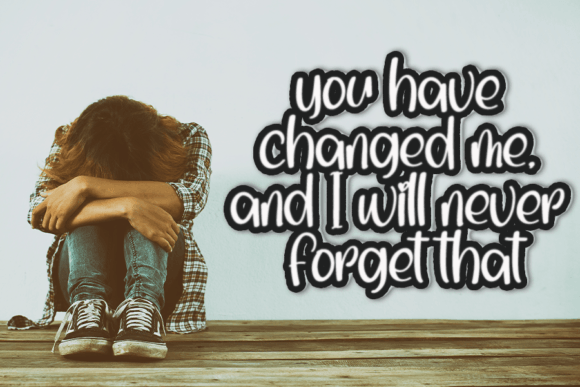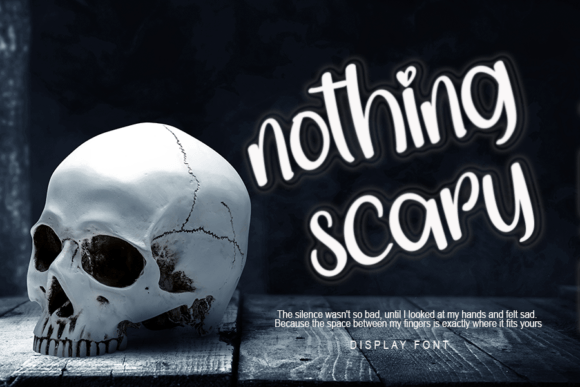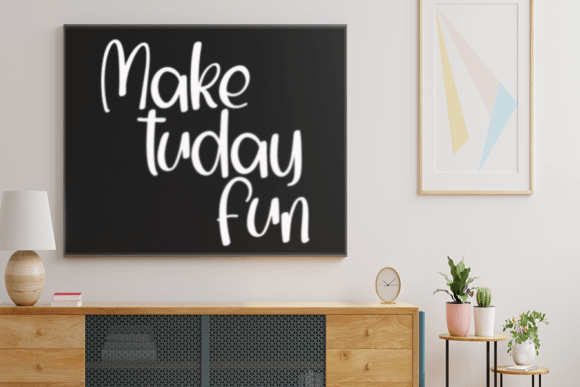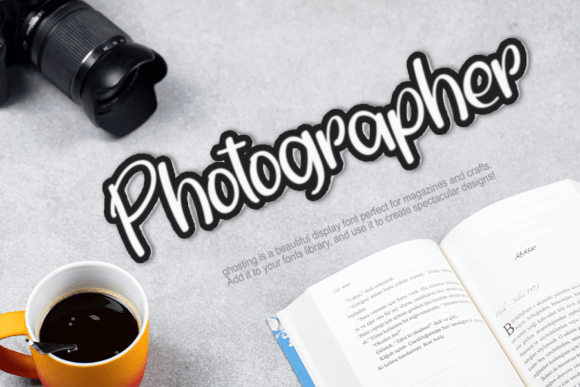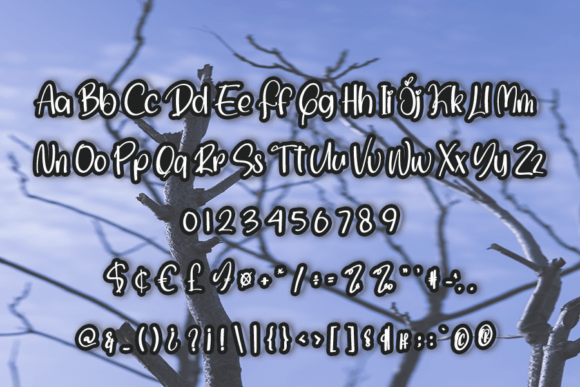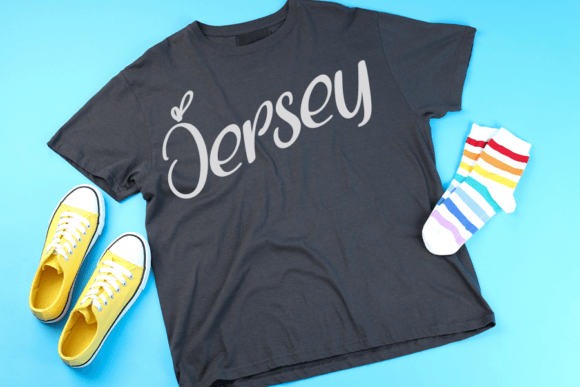
Introducing Ghosting Font: The Ultimate Handwritten Display Font for Creative Projects
Are you tired of using the same old fonts for your creative projects? Do you want to add a touch of personality and whimsy to your designs? Look no further than Ghosting Font, a fun and cute handwritten display font that’s sure to become a true favorite in your collection.
What is Ghosting Font?
Ghosting Font is a masterfully designed handwritten display font that’s perfect for crafters, designers, and anyone looking to add a personal touch to their creative projects. With its unique and playful style, this font has the potential to bring each of your creative ideas to the highest level.
Key Features of Ghosting Font
- Handwritten style: Ghosting Font features a beautiful, handwritten style that’s perfect for adding a personal touch to your designs.
- Display font: This font is specifically designed as a display font, making it perfect for headlines, titles, and other attention-grabbing elements.
- Unique and playful: Ghosting Font has a unique and playful style that’s sure to stand out in any design.
- Easy to read: Despite its playful style, Ghosting Font is easy to read and understand, making it perfect for use in a variety of creative projects.
Why Choose Ghosting Font?
So why choose Ghosting Font over other fonts on the market? Here are just a few reasons:
- Versatility: Ghosting Font can be used in a wide range of creative projects, from crafting and scrapbooking to graphic design and digital art.
- Personality: This font has a unique personality that will add a touch of whimsy and fun to any design.
- High-quality design: This font has been masterfully designed to ensure that it looks great in any design.
Creative Uses for Ghosting Font
So what can you use Ghosting Font for? The possibilities are endless! Here are a few ideas to get you started:
- Crafting and scrapbooking: Add a personal touch to your crafting and scrapbooking projects with Ghosting Font.
- Graphic design: Use Ghosting Font in your graphic design projects to add a touch of personality and whimsy.
- Digital art: Add a playful touch to your digital art projects with Ghosting Font.
- Signs and posters: Use Ghosting Font to create eye-catching signs and posters for any occasion.
Tips for Using Ghosting Font
Here are a few tips for getting the most out of Ghosting Font:
- Experiment with sizes and colors: Don’t be afraid to experiment with different sizes and colors to find the perfect look for your design.
- Pair with other fonts: Ghosting Font pairs well with a variety of other fonts, so don’t be afraid to get creative and try out different combinations.
- Use it sparingly: Because Ghosting Font is a display font, it’s best to use it sparingly to add emphasis and interest to your design.
In conclusion, Ghosting Font is a fun and cute handwritten display font that’s perfect for crafters, designers, and anyone looking to add a personal touch to their creative projects. With its unique and playful style, this font has the potential to bring each of your creative ideas to the highest level. So why wait? Download Ghosting Font today and start adding a touch of personality and whimsy to your designs!